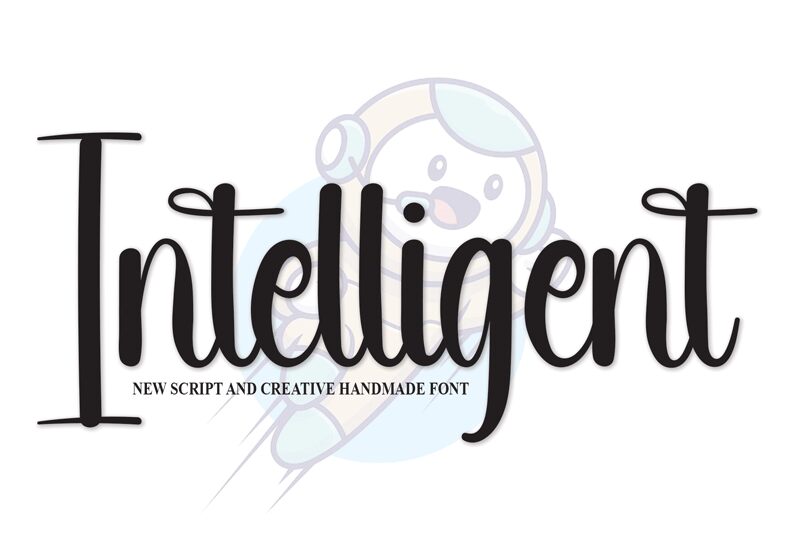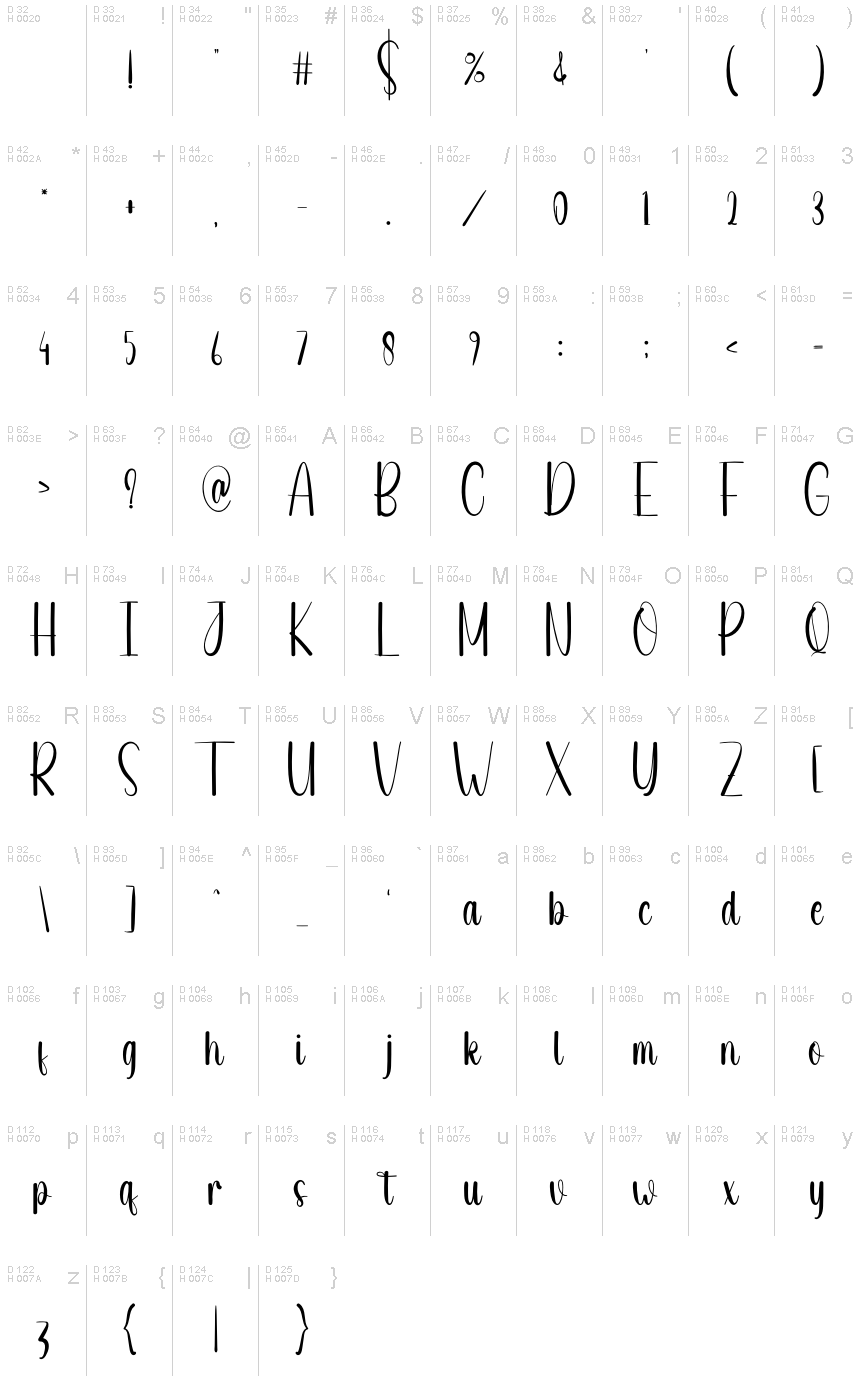
Intelligent
Intelligent, designed by Scratchones, exudes a personal touch with its handwritten style that brings warmth and approachability to any text. Its condensed form allows for an efficient use of space without sacrificing the font's distinct flair. The fluidity of its characters adds a dynamic rhythm to the visual flow, making it both elegant and functional.
This font is poised to charm in settings where intimacy and personality are prized. From bespoke invitations to branding for boutique businesses, Intelligent has the versatility to add sophistication to casual designs or lend a laid-back feel to more formal contexts. Its compact lettering also makes it ideal for editorial side notes or packaging with limited real estate, ensuring that messages are conveyed with both style and substance.